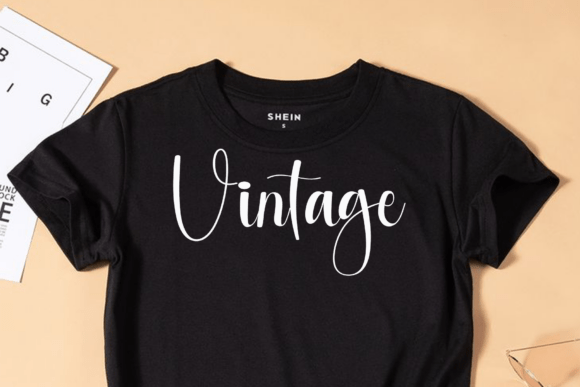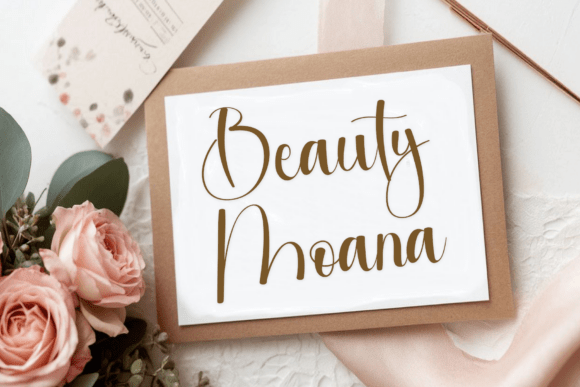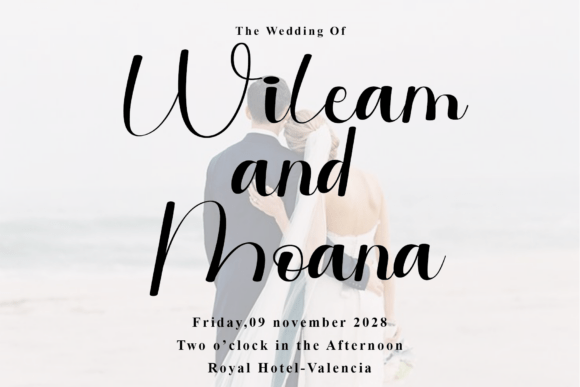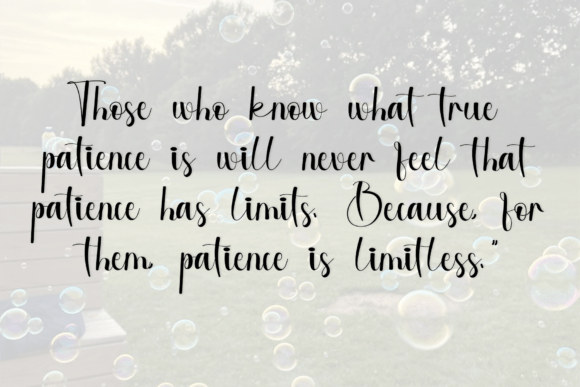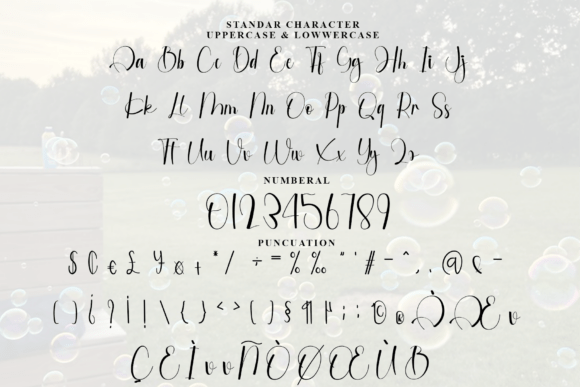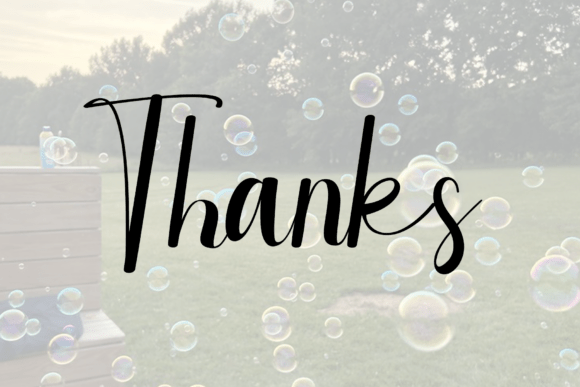
Introducing Farmering Font: The Epitome of Autumnal Elegance
As the seasons change and autumn leaves start to rustle, designers and crafters are on the lookout for typography that captures the essence of this cozy and inviting time of year. Look no further than Farmering Font, a sophisticated and rhythmic script font that embodies a unique and professional autumnal visual voice. This stunning typeface is part of a modern handwritten collection, designed to evoke the warmth and elegance of the season.
Characteristics of Farmering Font
Farmering Font is characterized by its high-contrast strokes, featuring thick, grounded downstrokes and delicate hairline connectors. This thoughtful design creates a sense of fluidity and movement, reminiscent of high-end inkwork. The typeface boasts vertically elongated letterforms, which add to its sophisticated and refined appearance. The looping ascenders are particularly noteworthy, as they mimic the flowing curves of handwritten script, imbuing the font with a sense of personality and charm.
Perfect for Autumn Marketing and Design Projects
Farmering Font is a premier asset for seasonal autumn marketing, artisanal food packaging, boutique event invitations, and sophisticated editorial headers. Its unique blend of elegance and playfulness makes it an excellent choice for designers and crafters looking to create eye-catching and memorable designs. Whether you’re working on a project for a harvest festival, a cozy coffee shop, or a high-end fashion brand, Farmering Font is sure to impress.
- High-contrast strokes: Thick downstrokes and delicate hairline connectors create a sense of fluidity and movement.
- Vertically elongated letterforms: Add to the font’s sophisticated and refined appearance.
- Graceful, looping ascenders: Mimic high-end inkwork, imbuing the font with personality and charm.
- Autumnal visual voice: Perfectly captures the essence of the season, evoking feelings of warmth and coziness.
- Versatile: Suitable for a wide range of design projects, from marketing and packaging to editorial and event design.
Using Farmering Font in Your Design Projects
Farmering Font is an incredibly versatile typeface, suitable for a wide range of design projects. Here are a few ideas to get you started:
- Autumn marketing campaigns: Use Farmering Font to create eye-catching posters, social media graphics, and advertisements that capture the essence of the season.
- Artisanal food packaging: Add a touch of elegance and sophistication to your packaging design with Farmering Font, perfect for specialty foods, baked goods, and craft beverages.
- Boutique event invitations: Create beautiful and memorable event invitations with Farmering Font, ideal for weddings, harvest festivals, and other seasonal events.
- Sophisticated editorial headers: Use Farmering Font to add a touch of elegance and refinement to your editorial designs, such as magazine headers, blog posts, and articles.
Farmering Font is a truly exceptional typeface that embodies the essence of autumn. Its unique blend of elegance, sophistication, and playfulness makes it an excellent choice for designers and crafters looking to create memorable and eye-catching designs. With its high-contrast strokes, vertically elongated letterforms, and looping ascenders, Farmering Font is the perfect asset for any design project that requires a touch of autumnal charm.